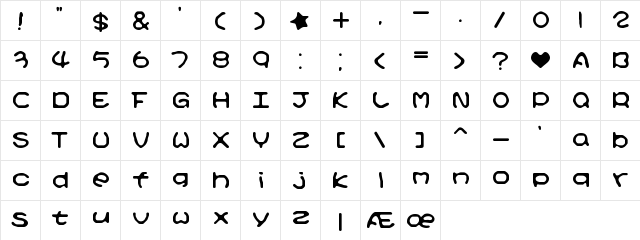
Kirby No Kira Kizzu BRK Regular
| Foundry | ƎIGMA FONTS |
| Designer | ƎIGMA FONTS - Brian Kent |
Design Context for Kirby No Kira Kizzu BRK Typeface
Kirby No Kira Kizzu BRK offers clean, dependable letterforms without strong stylistic allegiance, making it a practical choice for designers who need flexibility.